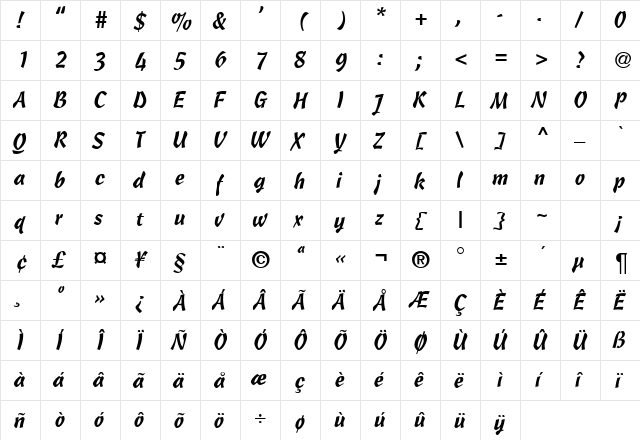
CascriptDB Normal Font Preview
CascriptDB Normal
CascriptDB Normal Font Details
Design Context for CascriptDB Typeface
CascriptDB brings a calligraphic fluidity to the page — its connecting strokes and expressive curves give it an unmistakably human quality.
Font Pairing: Combine CascriptDB with a simple geometric sans for maximum contrast — the tension between flowing curves and clean structure is a classic typographic pairing.
Pro Tip: Pair CascriptDB with a clean sans-serif for supporting text. The contrast between fluid script and geometric structure creates an elegant typographic hierarchy.